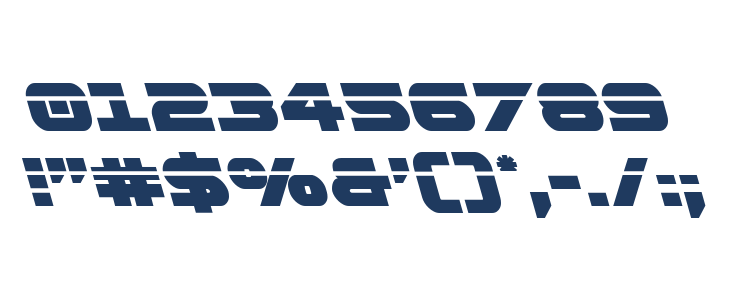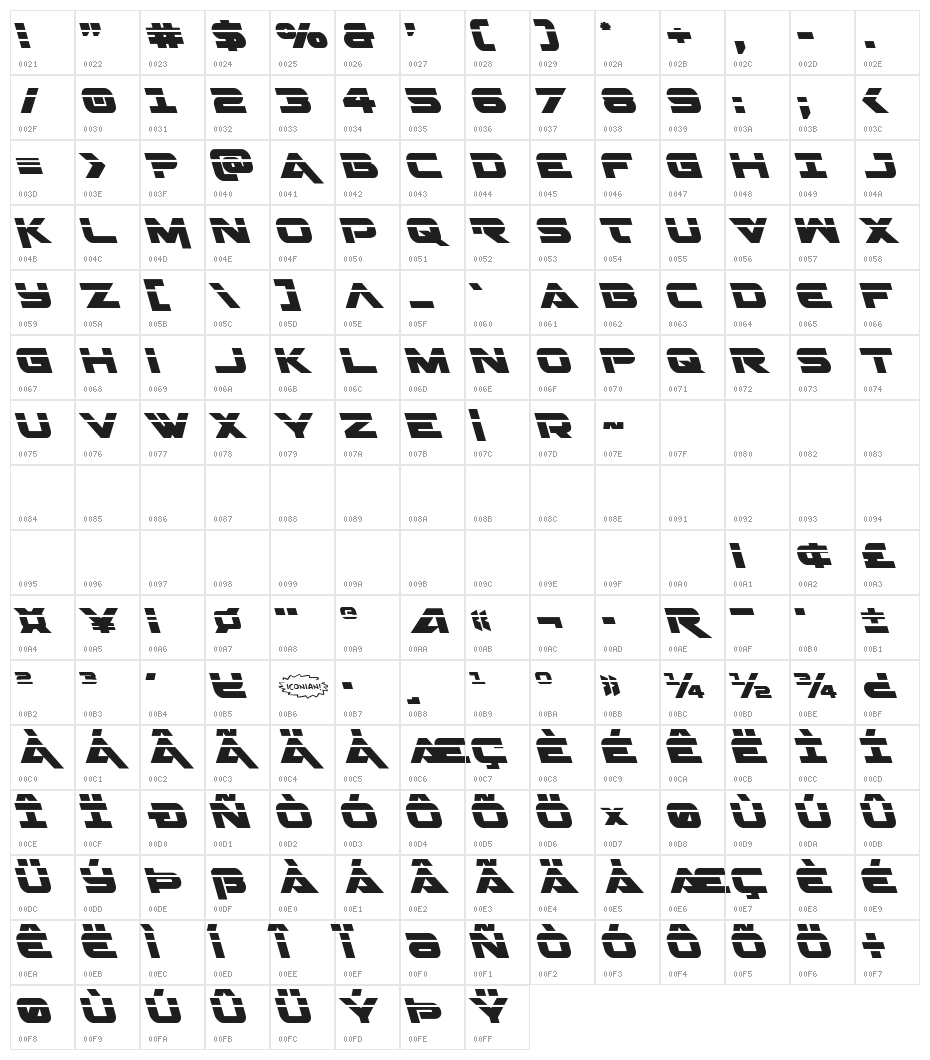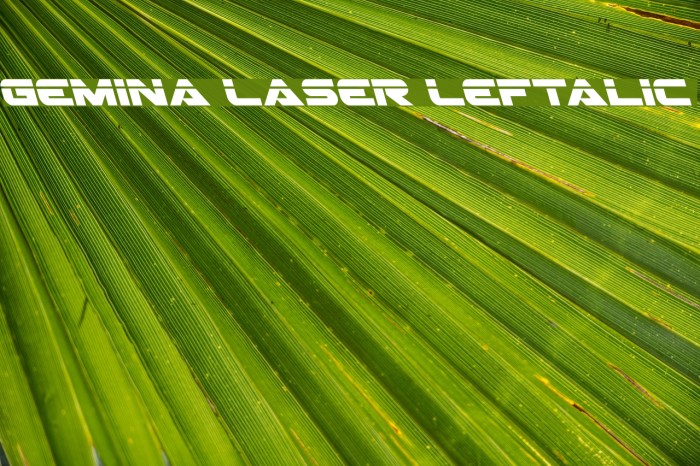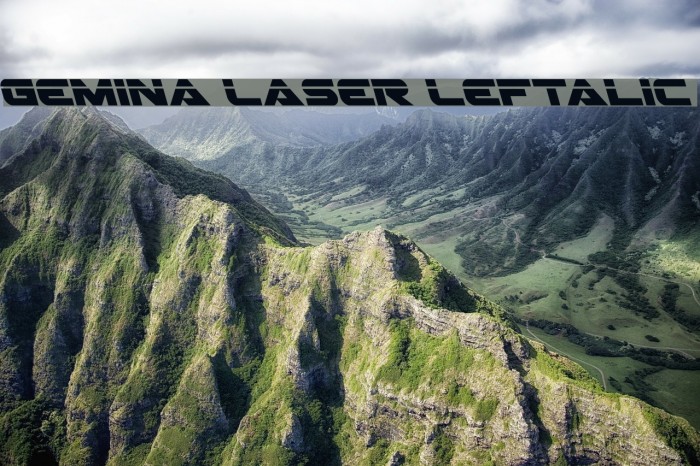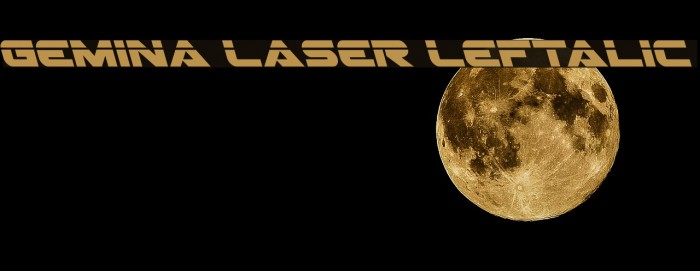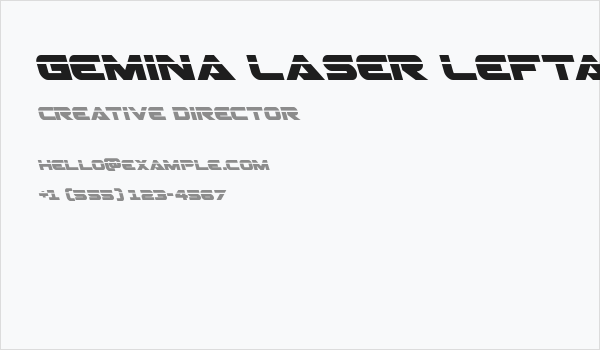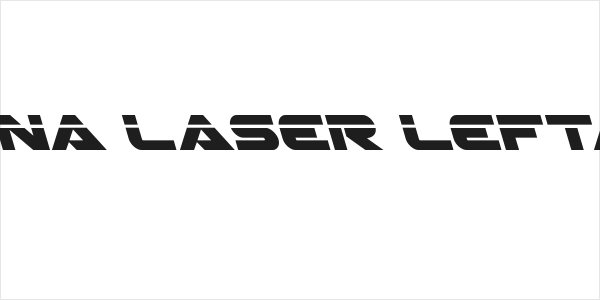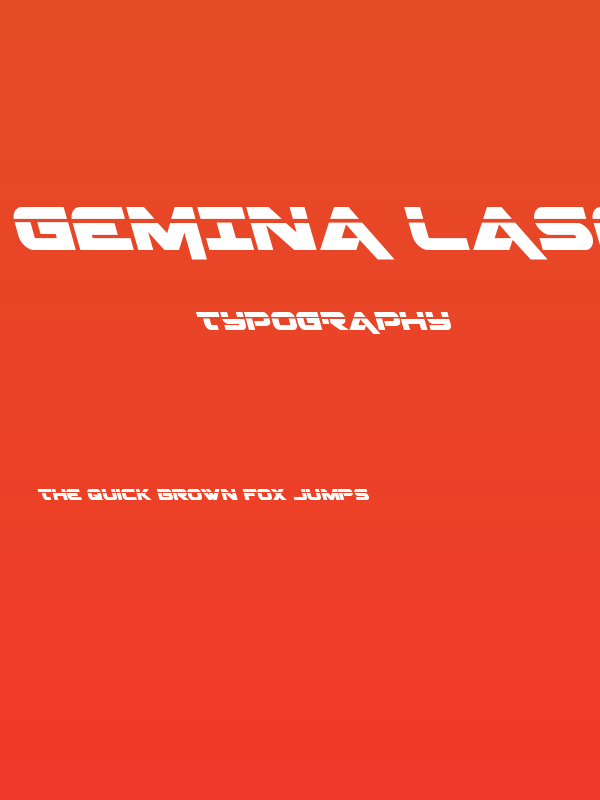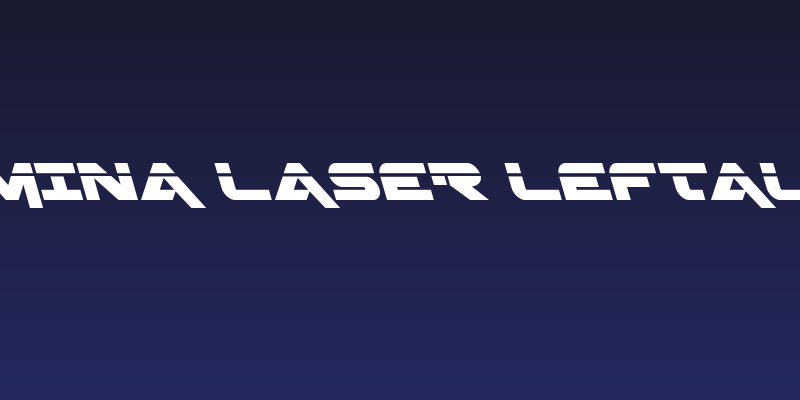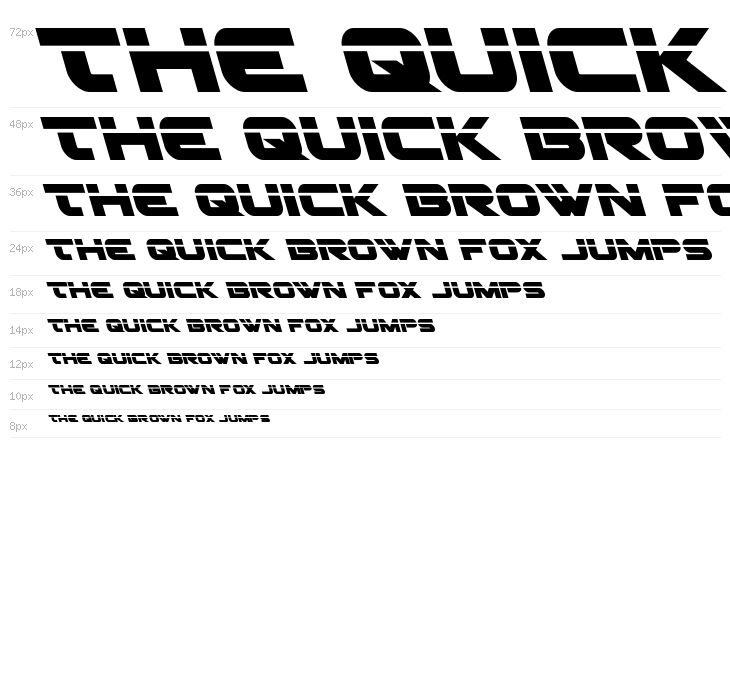
Gemina Laser Leftalic Font
Gemina Laser Leftalic Description
This font features a futuristic and angular design, characterized by sharp edges and geometric shapes. The letters have a distinct slant, giving them a dynamic and forward-moving appearance. The bold strokes and unique cutouts within each character create a sense of movement and energy. The font's style is reminiscent of digital or sci-fi themes, making it ideal for projects that require a modern and edgy look. The numbers and special characters maintain the same angular and bold aesthetic, ensuring consistency across all elements.
| Proposed Projects | Ideal for sci-fi movie posters, video game titles, tech branding, and futuristic-themed designs. |